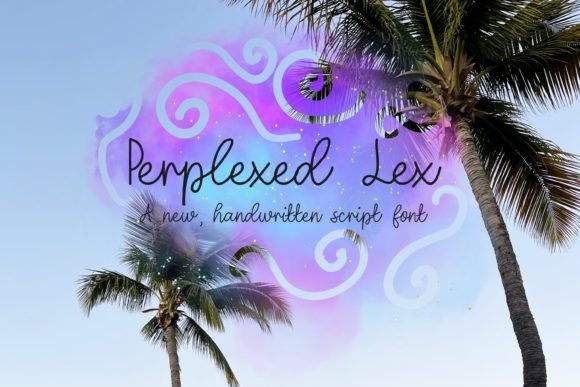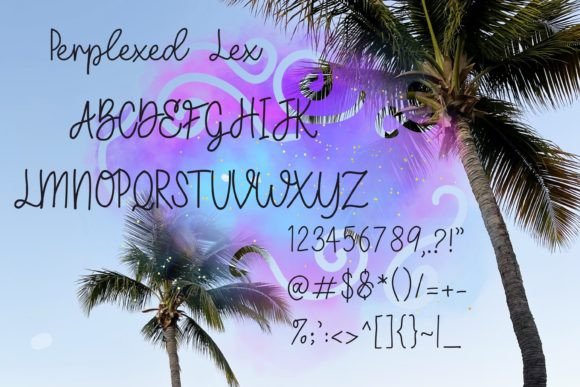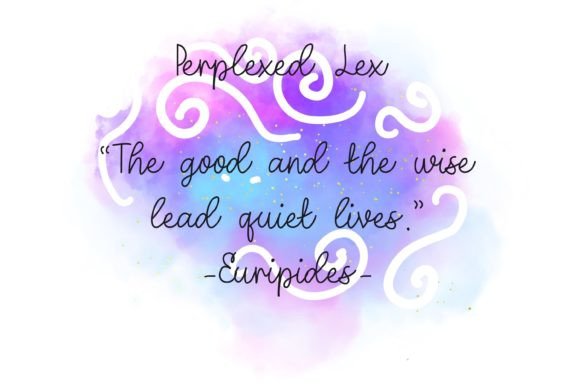
Perplexed Lex Font
**Perplexed Lex** is a fun and joyful handwritten font that brings a sense of whimsy and playfulness to your text. This whimsical and slightly quirky typeface is perfect for adding a touch of brightness and creativity to your designs, making them more engaging and enjoyable.
One of the standout features of Perplexed Lex is its fun and joyful character set. Each letter exudes personality and flair, making your text come to life with a sense of fun and spontaneity. This makes it an ideal choice for projects where you want to convey a sense of joy and playfulness.
Perplexed Lex’s ability to brighten up your designs makes it a versatile font for various creative applications. Whether you’re working on branding, posters, social media graphics, invitations, or any other project, this font adds a sense of positivity and individuality.
In branding and logo design, Perplexed Lex can infuse your brand identity with a unique and memorable personality, making your business stand out.
For posters and promotional materials, Perplexed Lex adds a touch of creativity and charm, making them visually appealing and attention-grabbing.
Invitations and greeting cards benefit from the font’s friendly and whimsical demeanor, enhancing the warmth and character of your messages.
In summary, Perplexed Lex is a fun and joyful handwritten font that brightens up your designs with a sense of creativity and positivity. Its versatility and playful style make it a wonderful choice for a wide range of design projects, where it can infuse your creative work with a sense of joy and individuality. Embrace Perplexed Lex confidently to add a dash of brightness and whimsy to your projects, and you’ll love the delightful results.